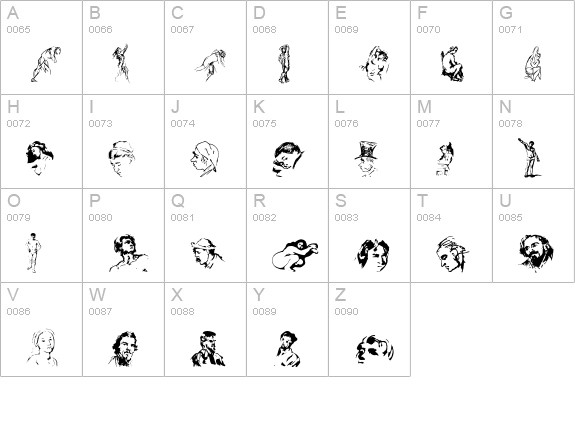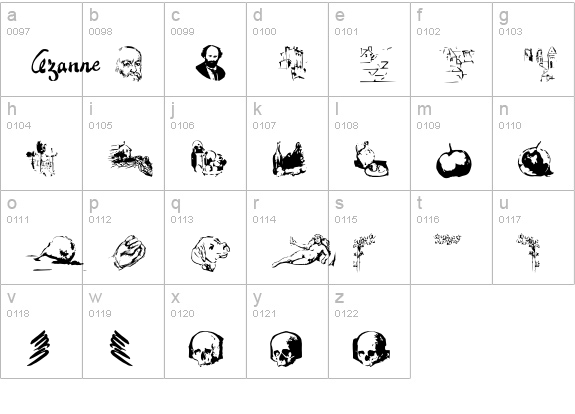
CezanneSketches Font Details
CezanneSketches font is a charming and whimsical typeface that captures the essence of hand-drawn sketches. With its playful and artistic design, this font exudes creativity and uniqueness. Each letter is carefully crafted to resemble brush strokes, giving it a dynamic and organic feel. Perfect for adding a personal touch to your designs, CezanneSketches font is versatile and can be used for a variety of projects, from branding to invitations to posters. Its casual yet stylish appearance makes it a great choice for those looking to make a statement with their typography. Best of all, CezanneSketches font is free to download at FontsMarket.com, making it accessible to everyone who wants to add a touch of creativity to their projects. Don't miss out on this opportunity to enhance your designs with this beautiful and artistic font. Download CezanneSketches font today and let your creativity flow!